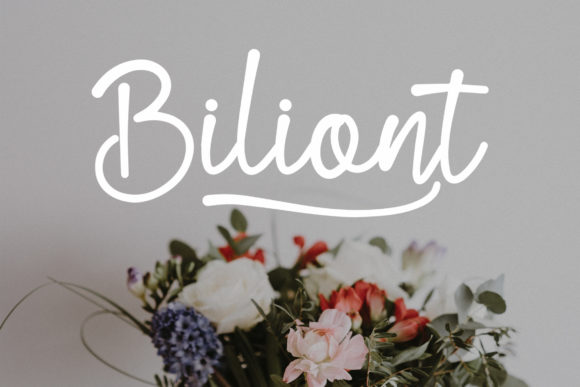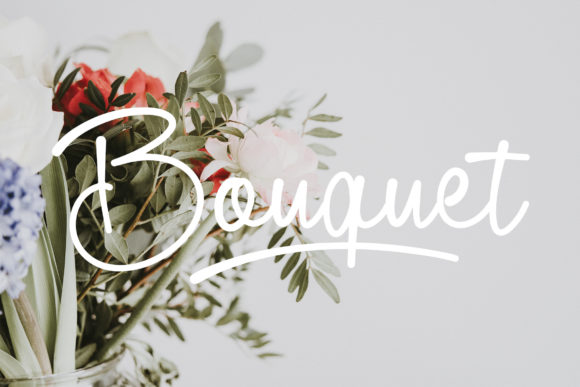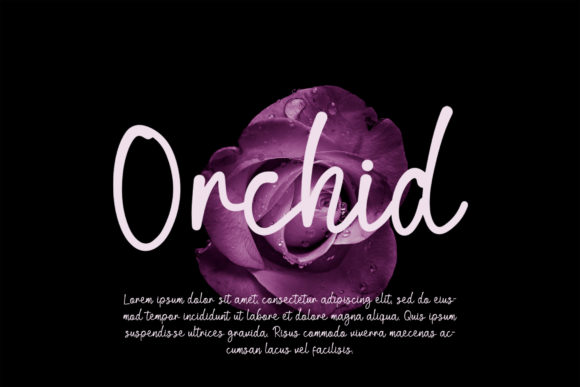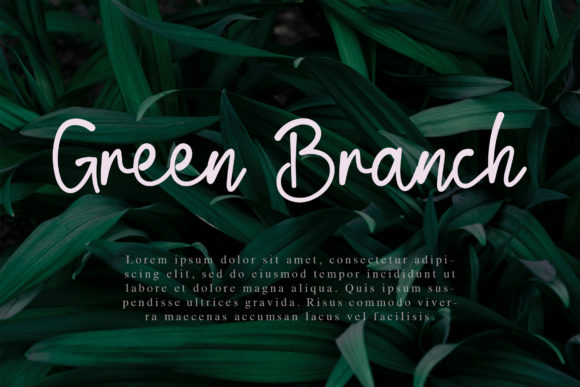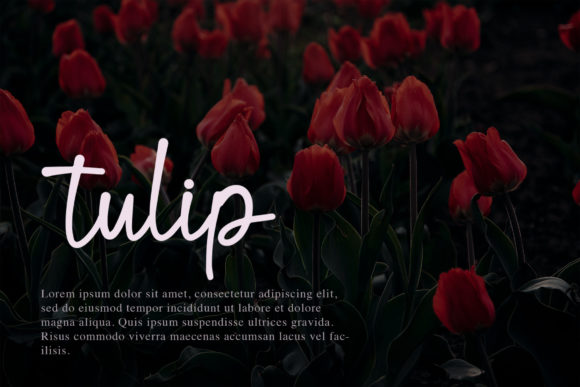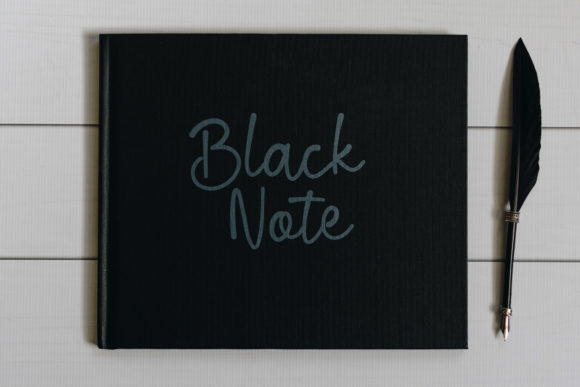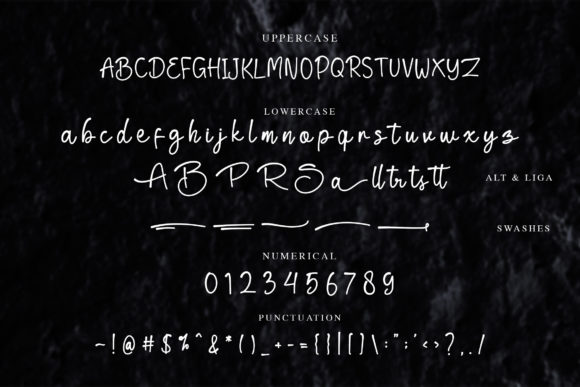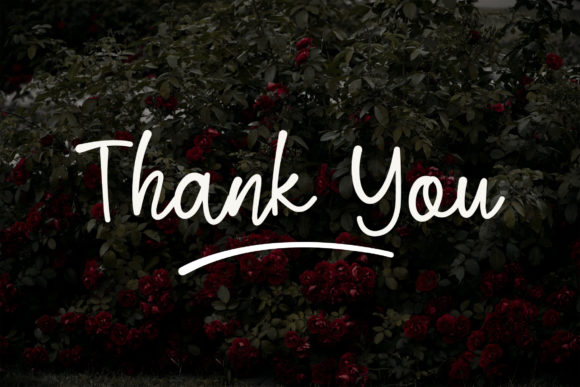
Blind Matte Script Font
About Blind Matte Script Font
Blind Matte Script is a simple, casual and beautiful script font. It has a classy, elegant and modern look that can be used for logos, branding, invitations, stationery, wedding designs, social media posts, and much more!